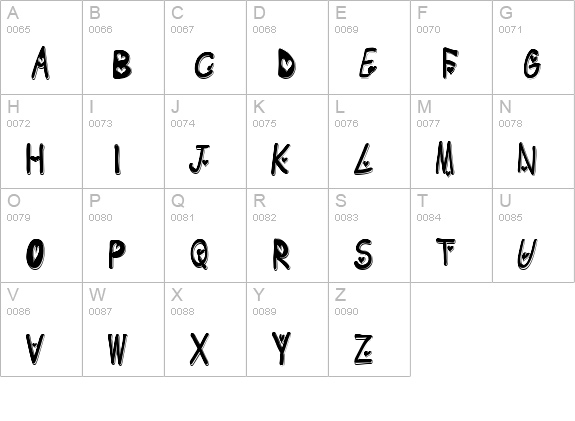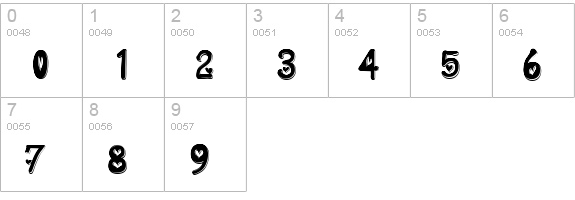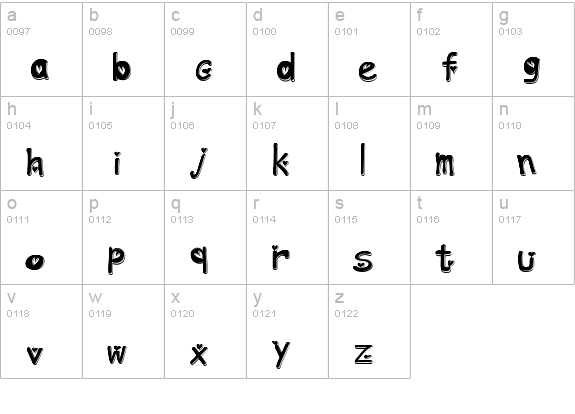
heart emboss Font Details
Introducing the captivating and enchanting Heart Emboss font, a marvelous typeface that will surely leave a lasting impression on your designs. This unique font showcases a stunning embossed effect, adding depth and dimension to any project it graces. Heart Emboss font features intricately designed letters, each adorned with delicate heart-shaped details that evoke a sense of love and romance. Its elegant curves and graceful strokes create a harmonious balance, making it perfect for wedding invitations, greeting cards, and other heartfelt creations. But what makes Heart Emboss font even more remarkable is that it is completely free! Yes, you read it right – this extraordinary font is freely available to download at FontsMarket.com. Whether you're a professional designer or a passionate DIY enthusiast, you can now elevate your projects with this beautiful font without any cost. With Heart Emboss font, you have the freedom to unleash your creativity and bring your ideas to life. Let it breathe life into your typography, making your words resonate with passion and emotion. Its versatility and timeless appeal make it suitable for a wide range of designs, from branding and logos to social media graphics and beyond. So why wait? Discover the magic of Heart Emboss font and unlock a world of possibilities for your next design endeavor. Download it for free at FontsMarket.com and let the love-filled letters of this font leave a lasting impression on your audience.